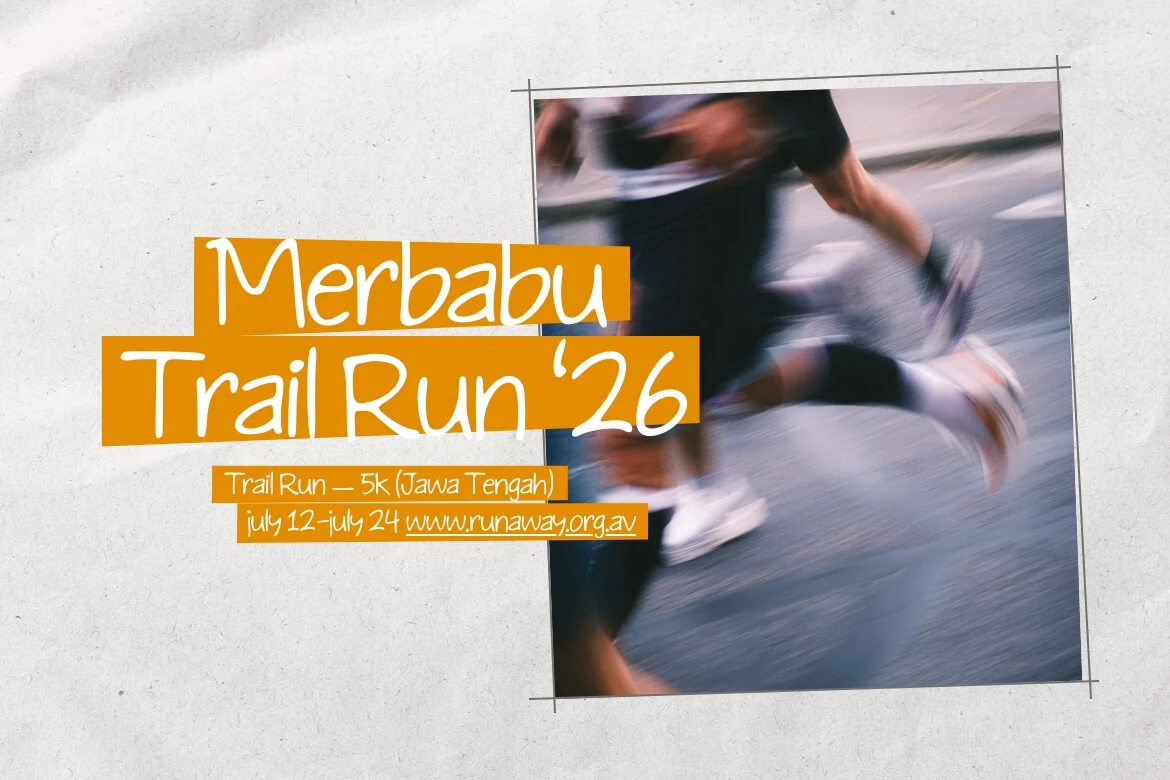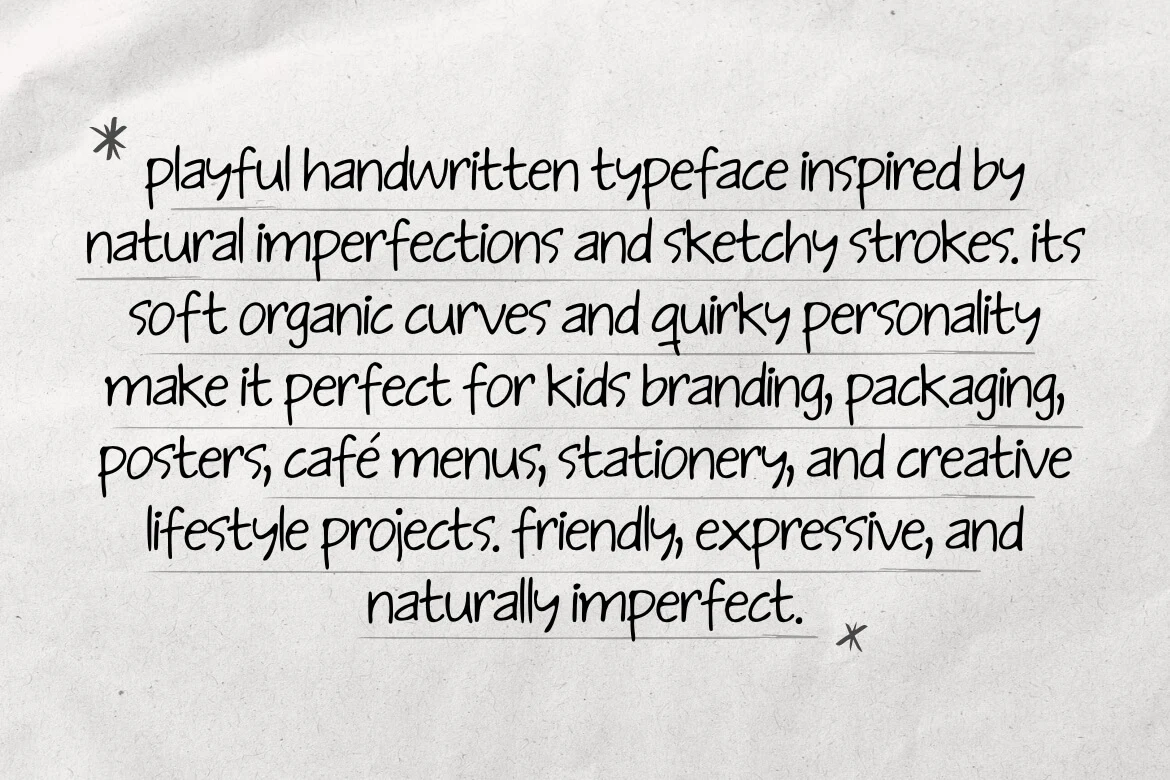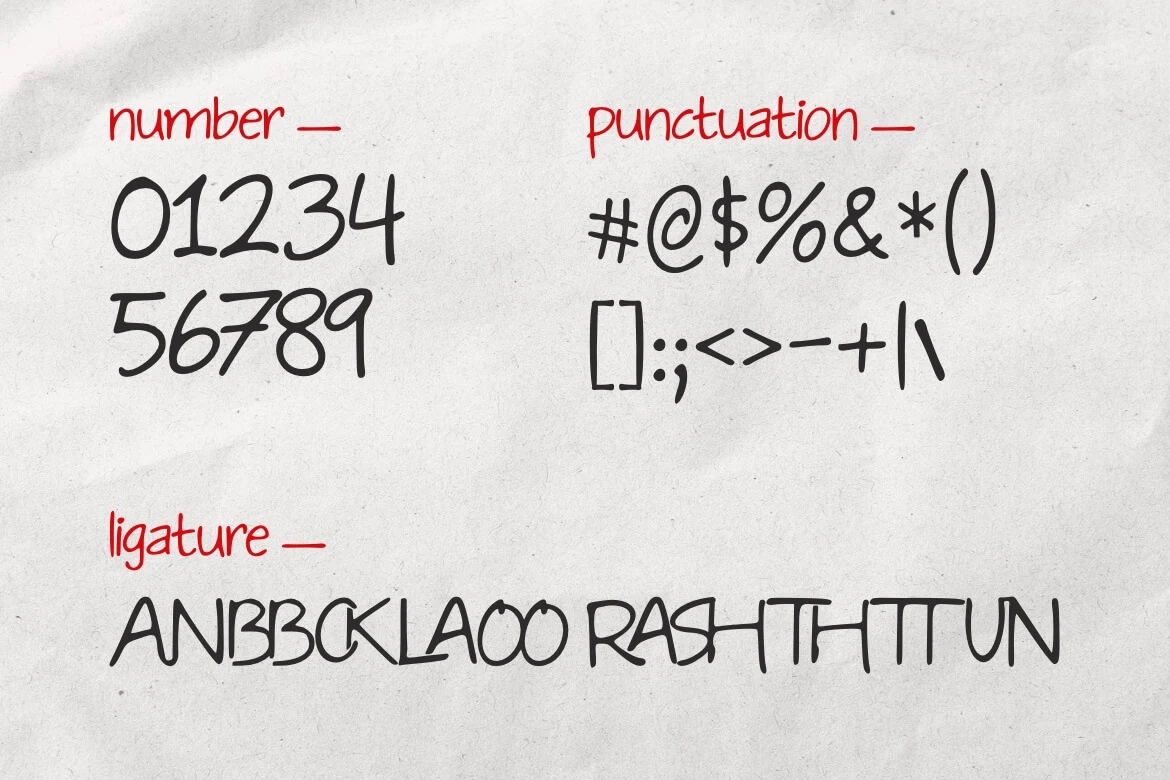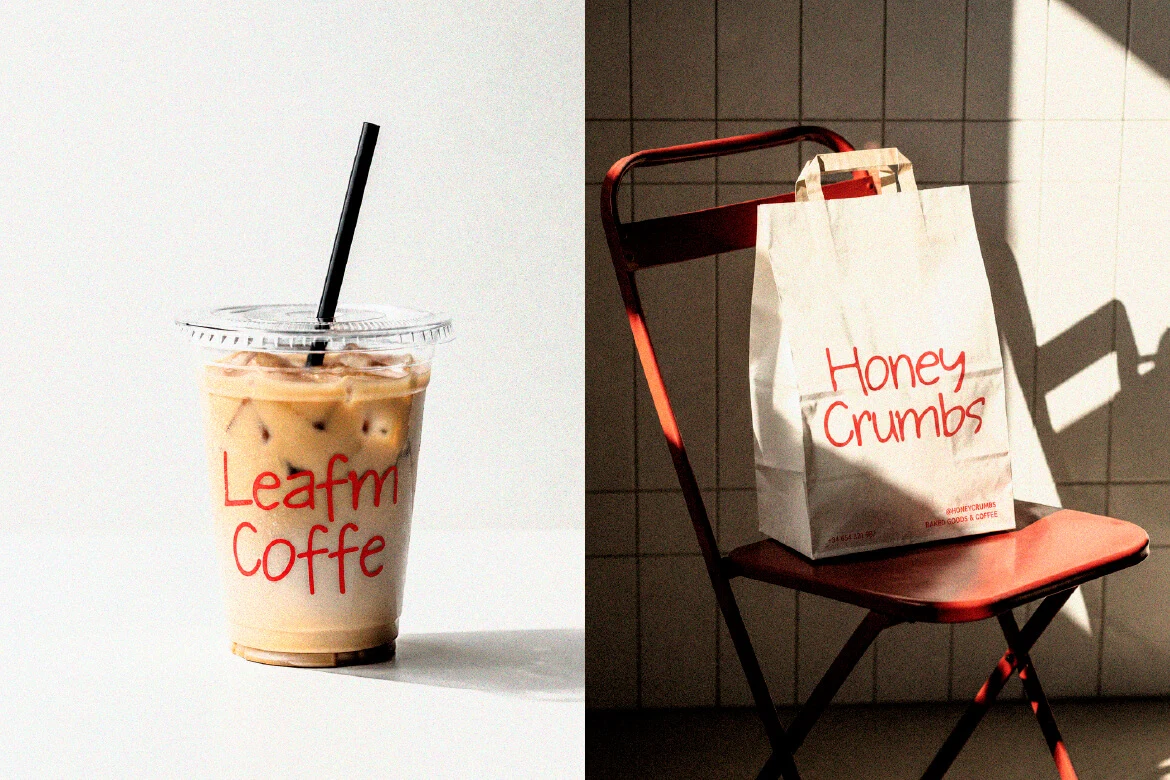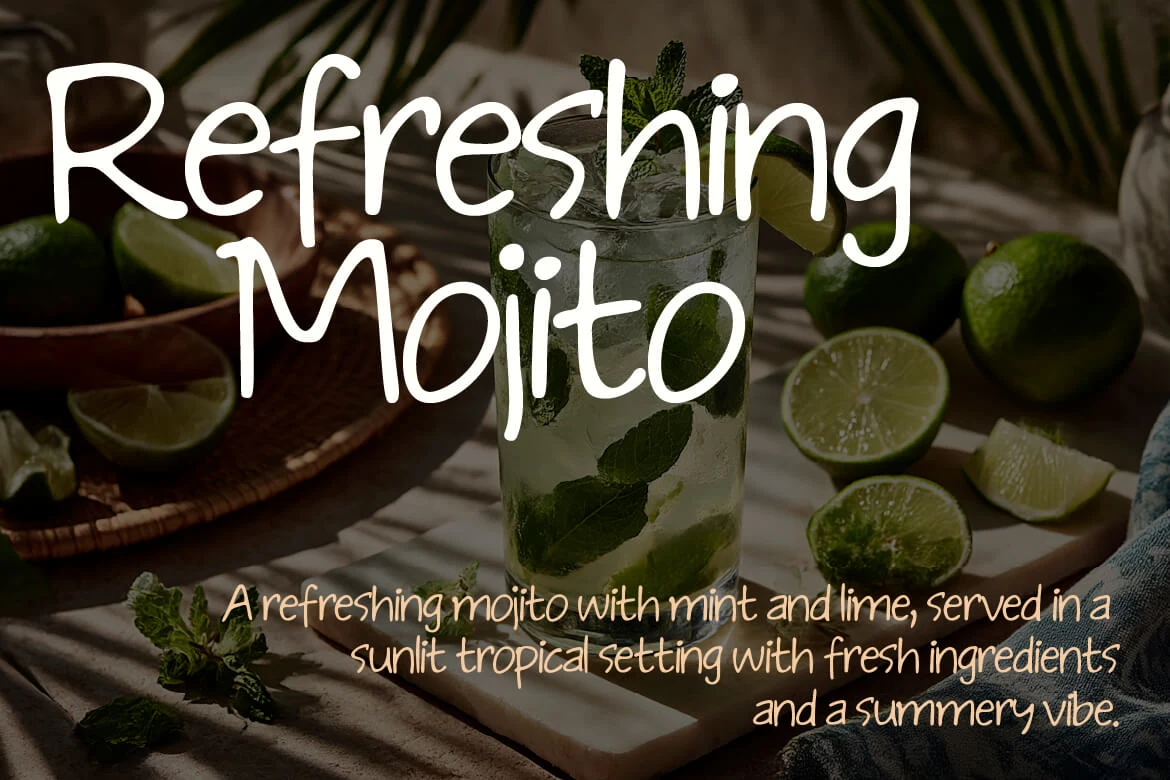
Leafm Scratch
Leafm Scratch is a casual handwritten font designed to capture the authentic, relaxed feel of real human handwriting. With subtle imperfections and natural pen flow, it brings warmth and organic charm to any design project.